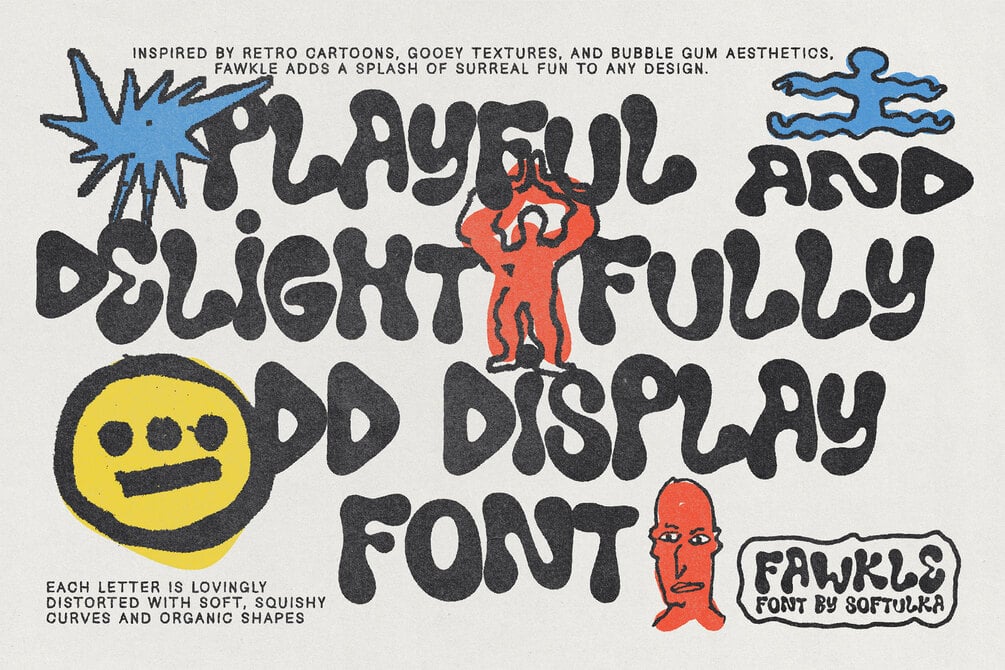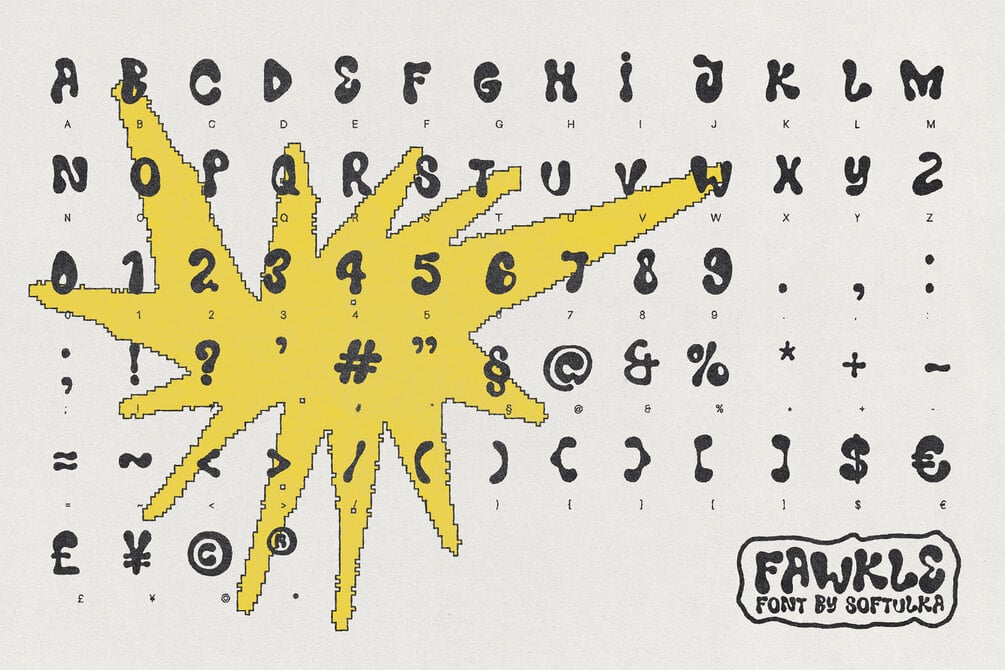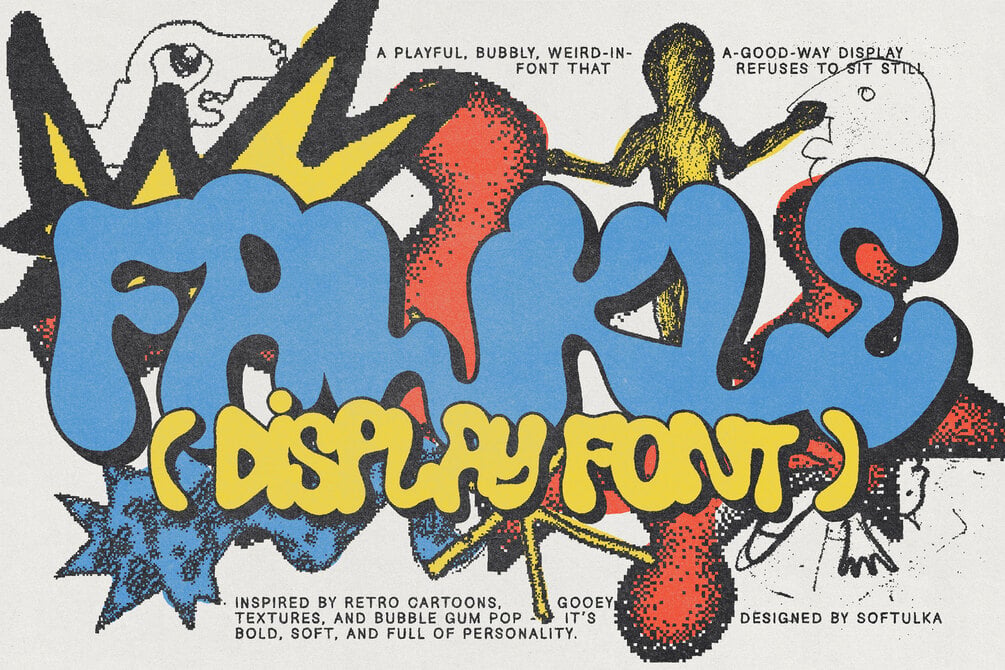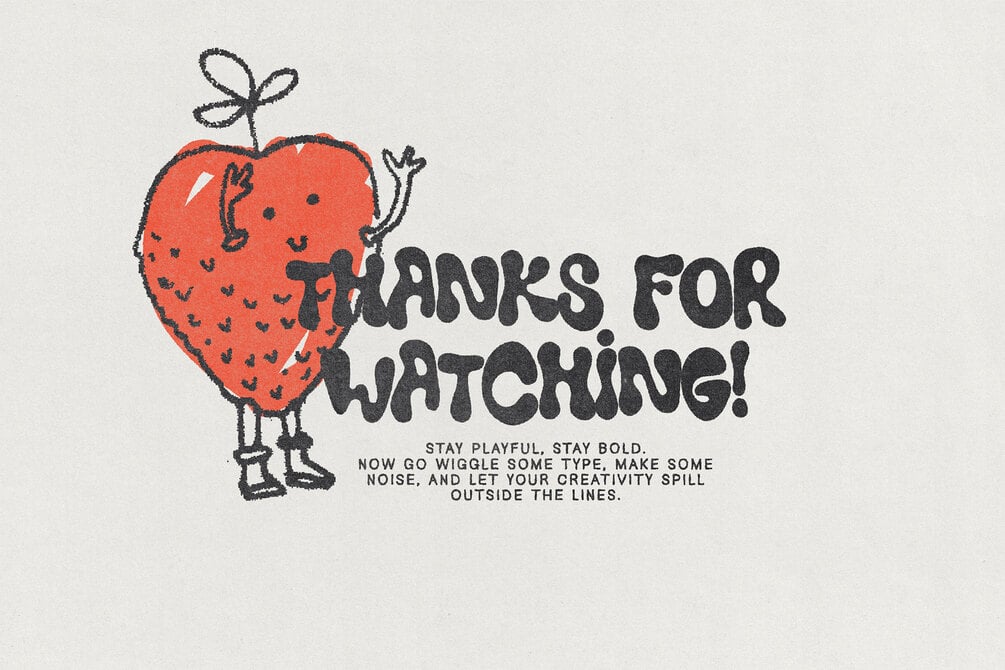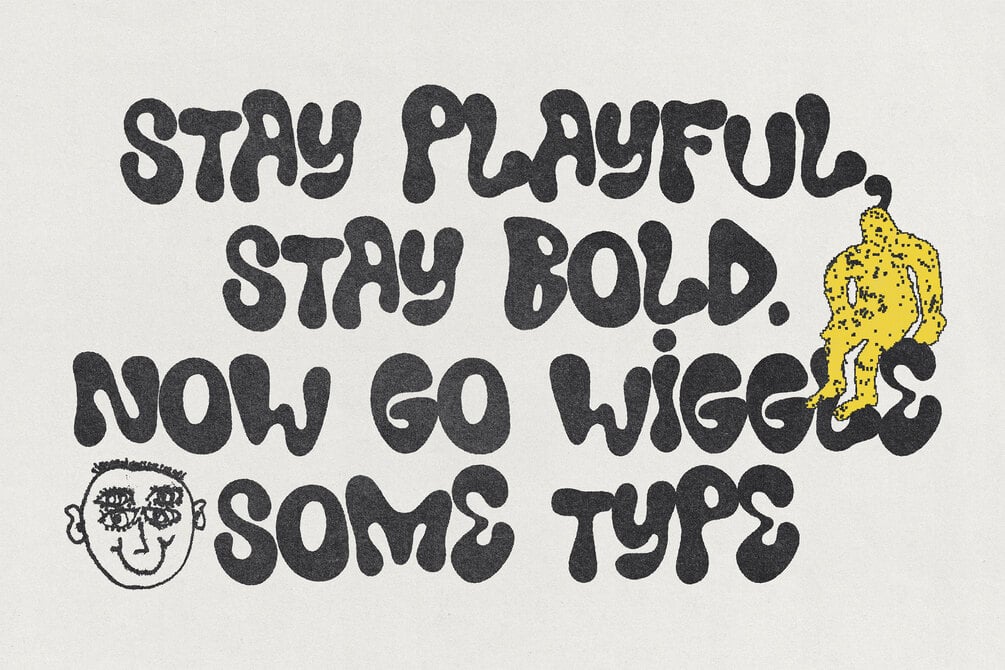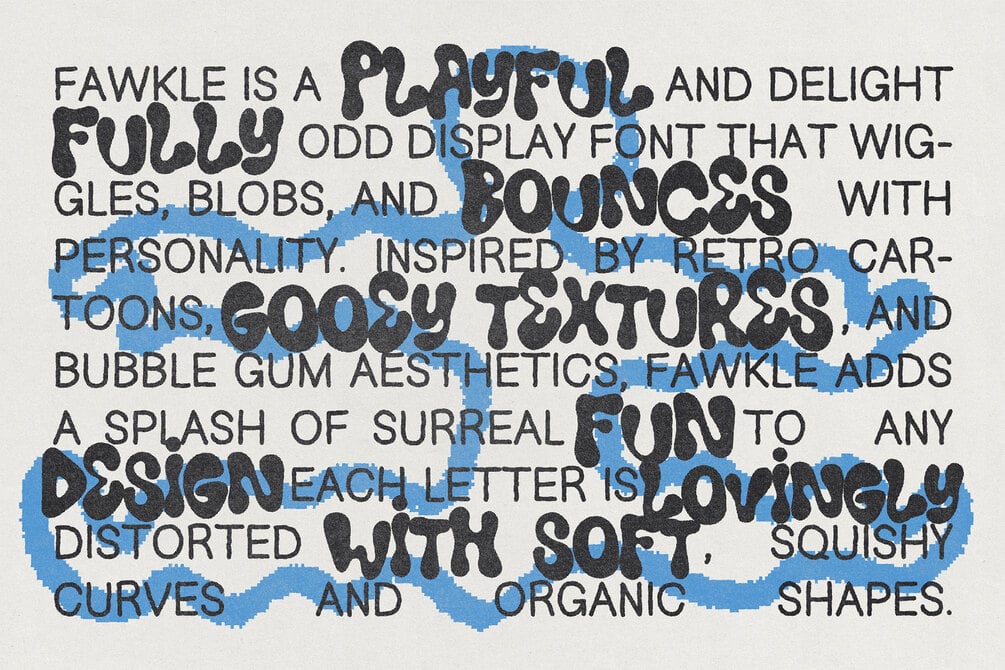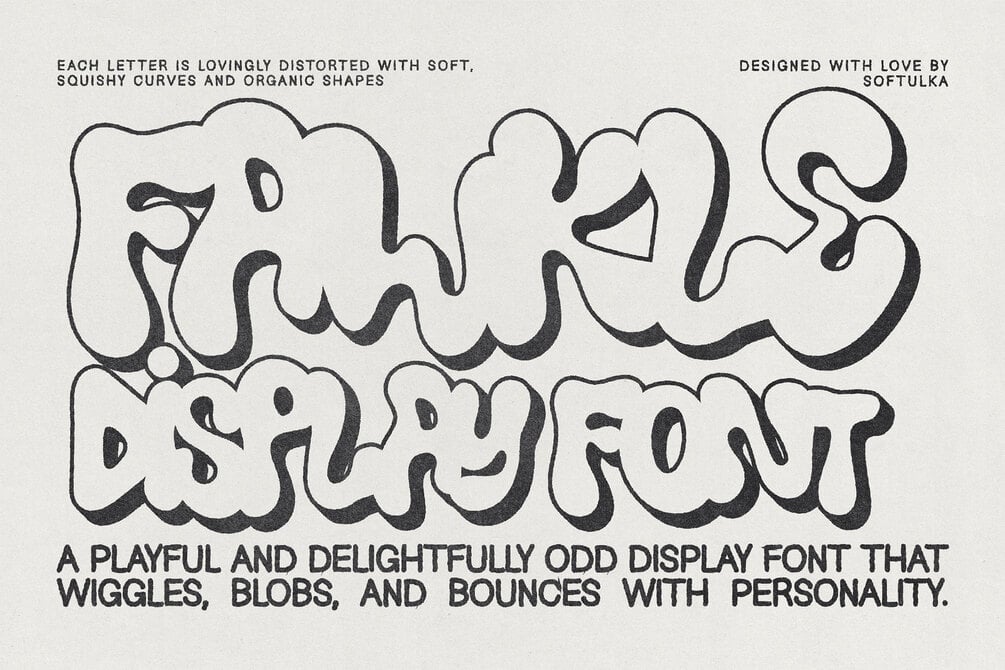
Fawkle – Wiggly, Bubbly, Weird Typeface
Fawkle is a playful and delightfully odd display font that wiggles, blobs, and bounces with personality. Inspired by retro cartoons, gooey textures, and bubble gum aesthetics, Fawkle adds a splash of surreal fun to any design. Each letter is lovingly distorted with soft, squishy curves and organic shapes — making it perfect for branding, album covers, posters, children’s projects, psychedelic layouts, and anything that craves joyful weirdness.
Whether you're designing for a playful brand or embracing maximalist, anti-design trends, Fawkle brings the fun with a soft, liquid edge.